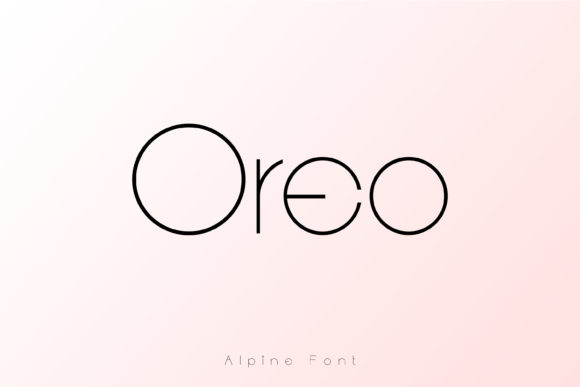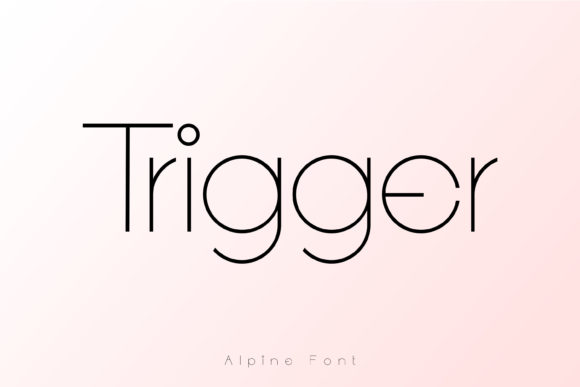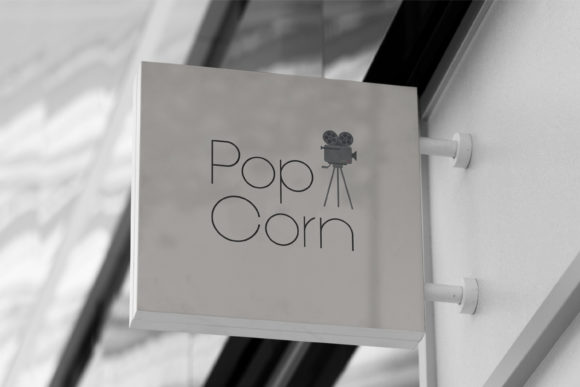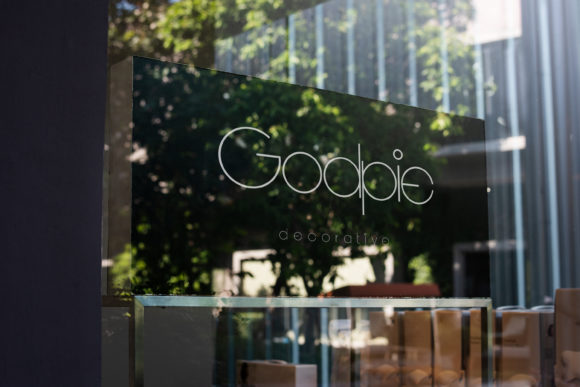
Discover the Elegance of Alpine Font: A Thin, Clean Sans Serif for Your Creative Projects
In the world of typography, the right font can elevate your design from ordinary to extraordinary. If you’re on the hunt for a font that combines elegance with versatility, look no further than the Alpine Font. This thin lettered and clean sans serif font is designed to seamlessly integrate into a wide array of projects, bringing a touch of sophistication and modernity to your creative endeavors. In this article, we’ll dive into the characteristics of the Alpine Font, explore its potential uses, and discuss why it should be a part of your typographic arsenal.
Characteristics of Alpine Font
The Alpine Font is distinguished by its sleek and minimalist design. Its primary features include:
- Thin Lettering: The font boasts a remarkably thin and delicate letterform, which lends an air of elegance and refinement to any text.
- Clean Sans Serif: The absence of serifs gives the Alpine Font a clean and contemporary look, making it highly legible and versatile for various design applications.
- Versatility: Its neutral and unobtrusive design allows it to adapt effortlessly to different contexts, from digital interfaces to print materials.
Why Choose Alpine Font for Your Projects?
The Alpine Font’s adaptability and aesthetic appeal make it an excellent choice for a multitude of projects. Here are some reasons why you should consider adding it to your typographic collection:
- Enhanced Readability: The clean and simple design of the Alpine Font ensures high readability, even at smaller sizes, making it perfect for body text and captions.
- Professional Look: The font’s sleek appearance adds a professional and polished look to your designs, which is particularly beneficial for branding, marketing materials, and presentations.
- Creative Freedom: With its neutral character, the Alpine Font provides a versatile base that allows your creative ideas to shine without overpowering them.
Potential Uses of Alpine Font
The possibilities are endless when it comes to using the Alpine Font. Here are some potential applications:
- Branding and Logotypes: The elegant and modern look of the Alpine Font makes it suitable for creating logos and brand identities that require a sophisticated touch.
- Web and Mobile Interfaces: Its clean design and readability at various sizes make it an excellent choice for UI/UX design, including website and app development.
- Print Materials: From business cards and brochures to posters and flyers, the Alpine Font can add a touch of elegance and professionalism to your print materials.
- Packaging Design: The font’s versatility and aesthetic appeal make it a great option for product packaging, helping your brand stand out on store shelves.
Tips for Using Alpine Font Effectively
To maximize the impact of the Alpine Font in your designs, consider the following tips:
- Combine with Other Fonts: Pair the Alpine Font with complementary fonts to create visual interest and hierarchy in your designs.
- Experiment with Colors: While the font’s elegance shines in black and white, don’t hesitate to experiment with colors that align with your brand’s palette.
- Pay Attention to Spacing: Ensure adequate spacing between letters and lines to maintain readability and aesthetic appeal.
The Alpine Font is a powerful tool for designers and crafters looking to infuse their projects with a modern, elegant, and professional touch. Its thin lettered and clean sans serif design makes it incredibly versatile, suitable for a wide range of applications from digital interfaces to print materials. By incorporating the Alpine Font into your typographic arsenal, you’ll be well-equipped to create stunning designs that stand out and leave a lasting impression.